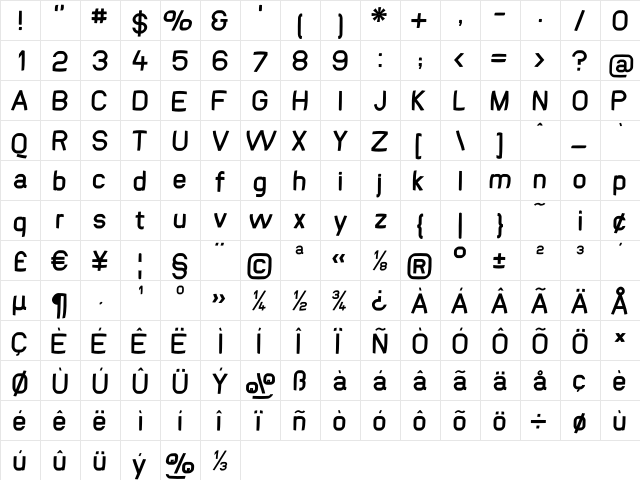
SwinginSansB Bold
Design Context for SwinginSansB Typeface
SwinginSansB takes a measured approach to typography — its balanced proportions and neutral character make it a reliable workhorse for both digital and print work. Its bold stroke weight gives it real presence on the page.